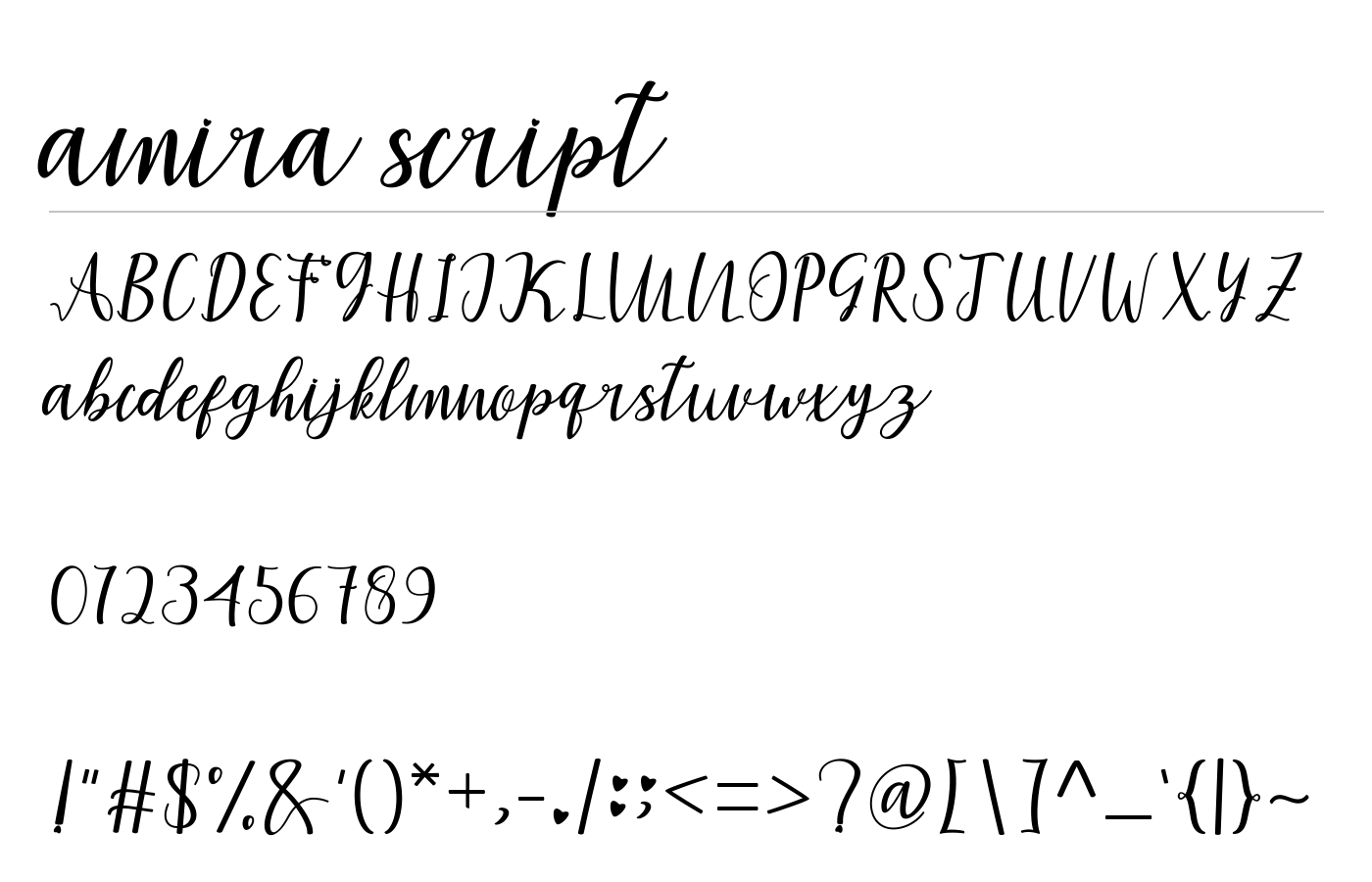
Amira Script is a graceful, elegant script font with a flowing, handwritten feel and subtle calligraphic touches. Its slender strokes, moderate contrast, and airy spacing create a refined and modern look, making it ideal for fashion branding, wedding invitations, and stylish editorial designs. This font's charming personality lends a sophisticated yet approachable vibe, perfect for projects seeking a delicate, artistic flair.
amira script Font
About amira script Font